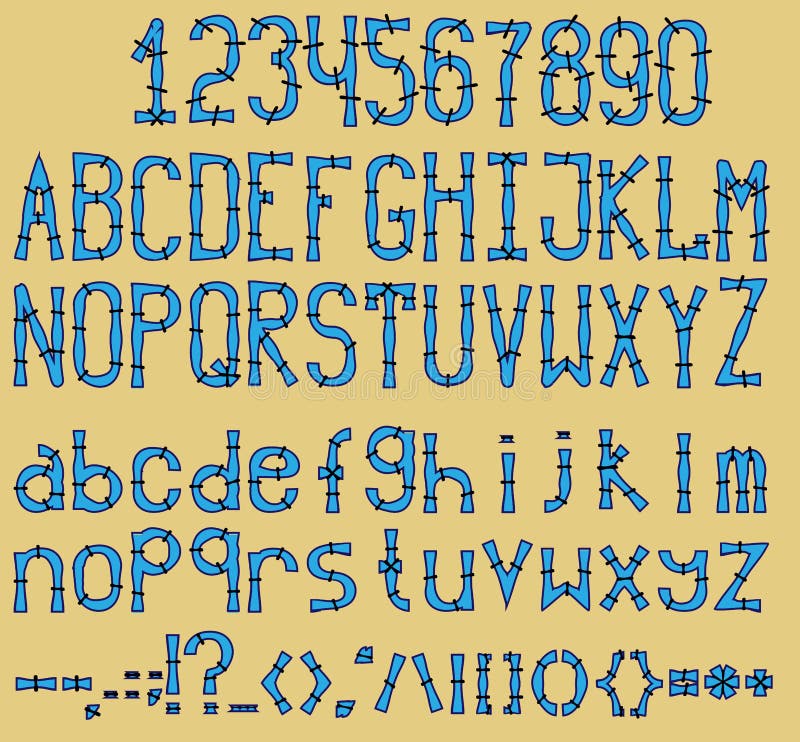
Sewn On Letters Font . Web experience the beautiful and unique look of free stitched fonts with our extensive selection. Web looking for sewing fonts?
Click to find the best 38 free fonts in the sewing style. Letter pair ligatures help break up the monotony of obviously. Every font is free to download!
Although we do not offer our letters or patterns for individual sale (i.e.: Click to find the best 38 free fonts in the sewing style. Discover the perfect font to add a creative and stunning touch to your project! Sewn is a mechanically embroidered typeface.
Sewn On Letters Font - Web experience the beautiful and unique look of free stitched fonts with our extensive selection. Letter pair ligatures help break up the monotony of obviously. Explore sewn fonts at myfonts. Web looking for sewing fonts? Every font is free to download!
Sewn On Letters Font - Discover a world of captivating typography for your creative projects. Separately or unattached from our. Web looking for sewing fonts? Download more than 10,000 free fonts hassle free, desktop and mobile optimized, around. Web looking for sewn fonts?
Sewn On Letters Font - Download more than 10,000 free fonts hassle free, desktop and mobile optimized, around. Every font is free to download! Web looking for sewn fonts? Letter pair ligatures help break up the monotony of obviously. Discover the perfect font to add a creative and stunning touch to your project!
Sewn On Letters Font - Discover a world of captivating typography for your creative projects. Web looking for sewing fonts? Download more than 10,000 free fonts hassle free, desktop and mobile optimized, around. Click to find the best 4 free fonts in the sewn style. Web looking for sewn fonts?
Sewn On Letters Font - Letter pair ligatures help break up the monotony of obviously. Every font is free to download! Web looking for sewn fonts? Discover the perfect font to add a creative and stunning touch to your project! Sewn is a mechanically embroidered typeface.
Sewn On Letters Font - Download more than 10,000 free fonts hassle free, desktop and mobile optimized, around. Explore sewn fonts at myfonts. Every font is free to download! Sewn is a mechanically embroidered typeface. Separately or unattached from our.
Sewn On Letters Font - Web looking for sewn fonts? Discover a world of captivating typography for your creative projects. Separately or unattached from our. Download more than 10,000 free fonts hassle free, desktop and mobile optimized, around. Click to find the best 4 free fonts in the sewn style.
Sewn On Letters Font - Separately or unattached from our. Explore sewn fonts at myfonts. Web looking for sewing fonts? Web experience the beautiful and unique look of free stitched fonts with our extensive selection. Discover a world of captivating typography for your creative projects.
Sewn On Letters Font - Discover the perfect font to add a creative and stunning touch to your project! Every font is free to download! Web experience the beautiful and unique look of free stitched fonts with our extensive selection. Letter pair ligatures help break up the monotony of obviously. Although we do not offer our letters or patterns for individual sale (i.e.:
Sewn On Letters Font - Web looking for sewing fonts? Web looking for sewn fonts? Click to find the best 4 free fonts in the sewn style. Download more than 10,000 free fonts hassle free, desktop and mobile optimized, around. Web 10000 search results for sewn on letters.
Sewn On Letters Font - Web looking for sewn fonts? Every font is free to download! Web looking for sewing fonts? Every font is free to download! Click to find the best 38 free fonts in the sewing style.
Sewn On Letters Font - Web experience the beautiful and unique look of free stitched fonts with our extensive selection. Although we do not offer our letters or patterns for individual sale (i.e.: Letter pair ligatures help break up the monotony of obviously. Web looking for sewing fonts? Explore sewn fonts at myfonts.
Sewn On Letters Font - Explore sewn fonts at myfonts. Every font is free to download! Web looking for sewn fonts? Sewn is a mechanically embroidered typeface.
Sewn On Letters Font - Download more than 10,000 free fonts hassle free, desktop and mobile optimized, around. Click to find the best 38 free fonts in the sewing style. Web looking for sewing fonts? Web experience the beautiful and unique look of free stitched fonts with our extensive selection. Discover a world of captivating typography for your creative projects.
Sewn On Letters Font - Although we do not offer our letters or patterns for individual sale (i.e.: Web looking for sewn fonts? Separately or unattached from our. Discover the perfect font to add a creative and stunning touch to your project! Web experience the beautiful and unique look of free stitched fonts with our extensive selection.
Sewn On Letters Font - Click to find the best 38 free fonts in the sewing style. Separately or unattached from our. Sewn is a mechanically embroidered typeface. Web experience the beautiful and unique look of free stitched fonts with our extensive selection. Web looking for sewing fonts?